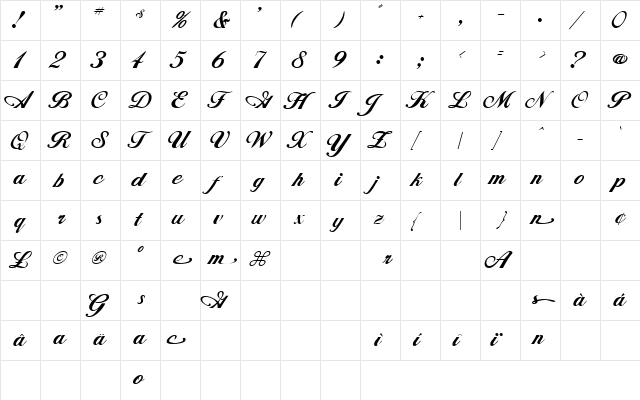
MagellanScriptSSK Regular
Design Context for MagellanScriptSSK Typeface
MagellanScriptSSK flows with the natural rhythm of handwritten lettering, making it ideal for designs that call for warmth and personal expression.
Font Pairing: Combine MagellanScriptSSK with a simple geometric sans for maximum contrast — the tension between flowing curves and clean structure is a classic typographic pairing.
Pro Tip: Use MagellanScriptSSK for short runs of text — names, titles, or taglines. Extended body copy in script faces tires the eye quickly.